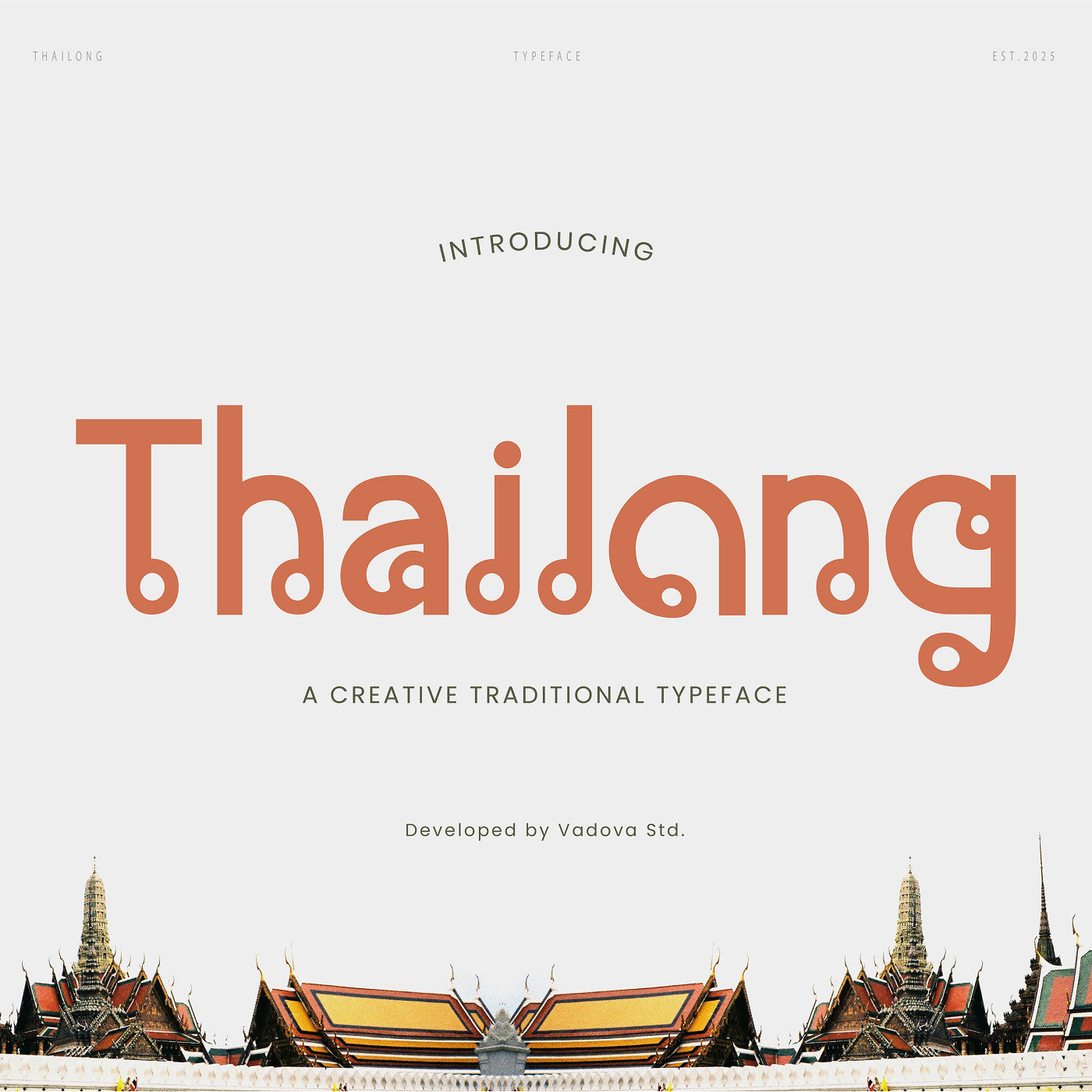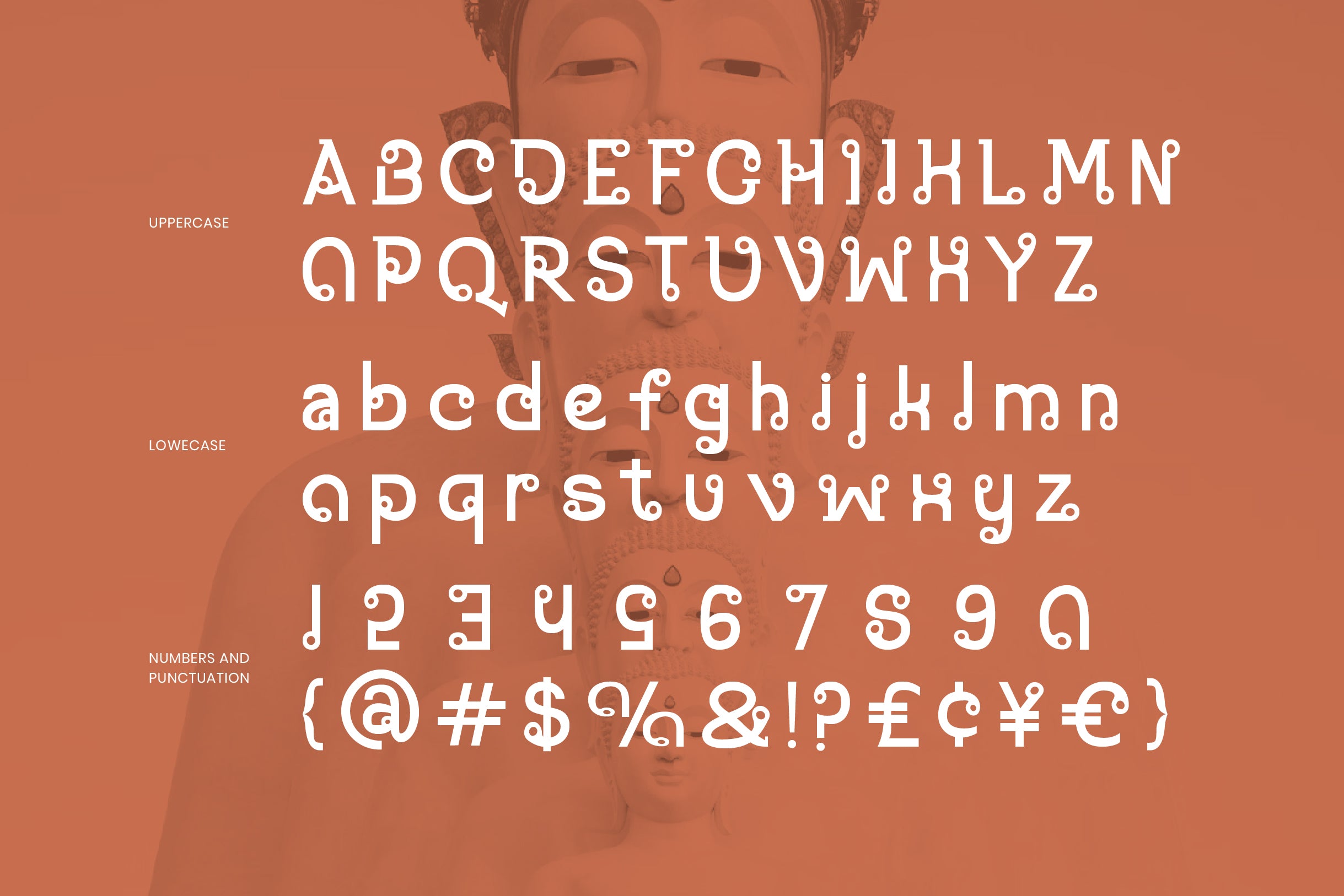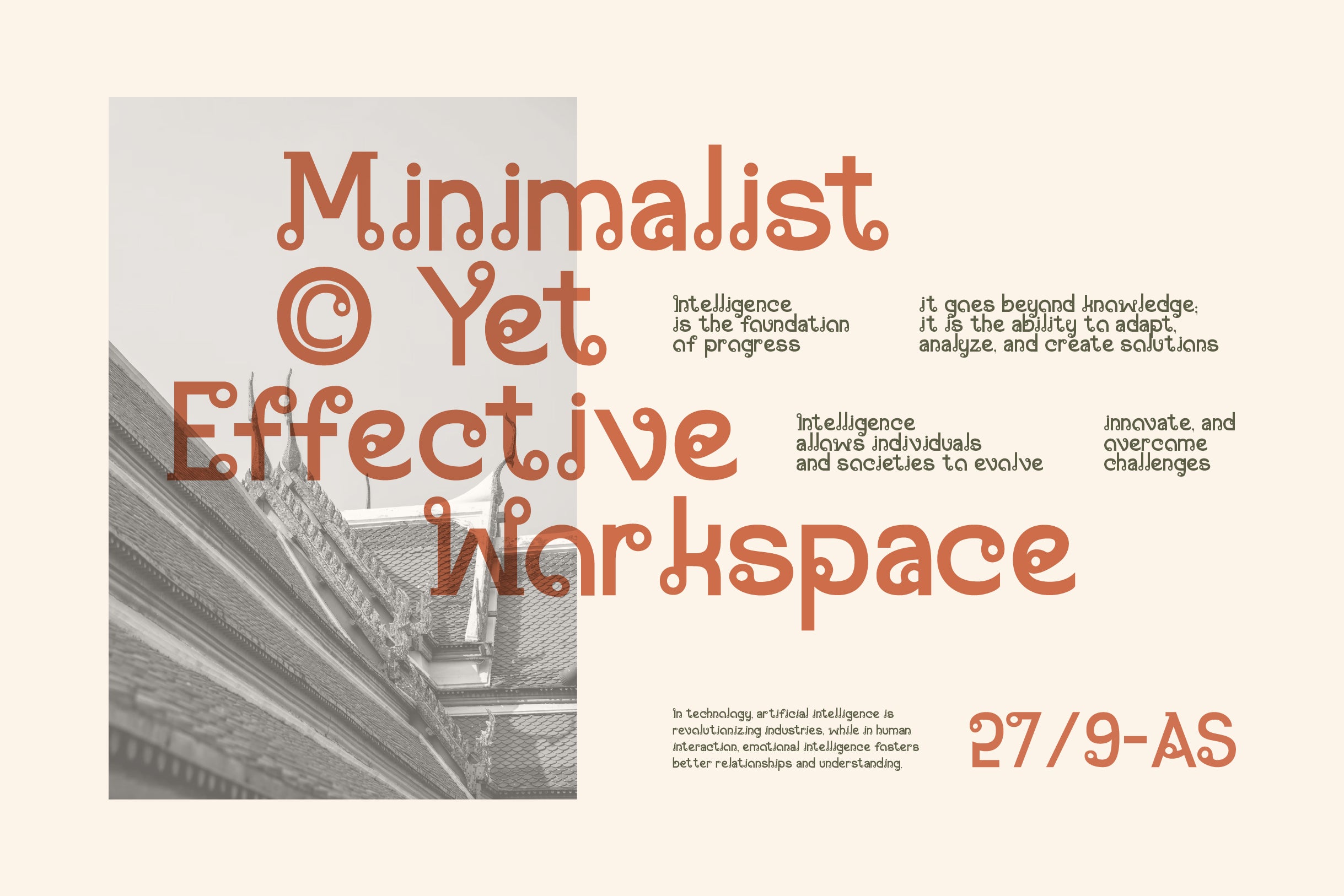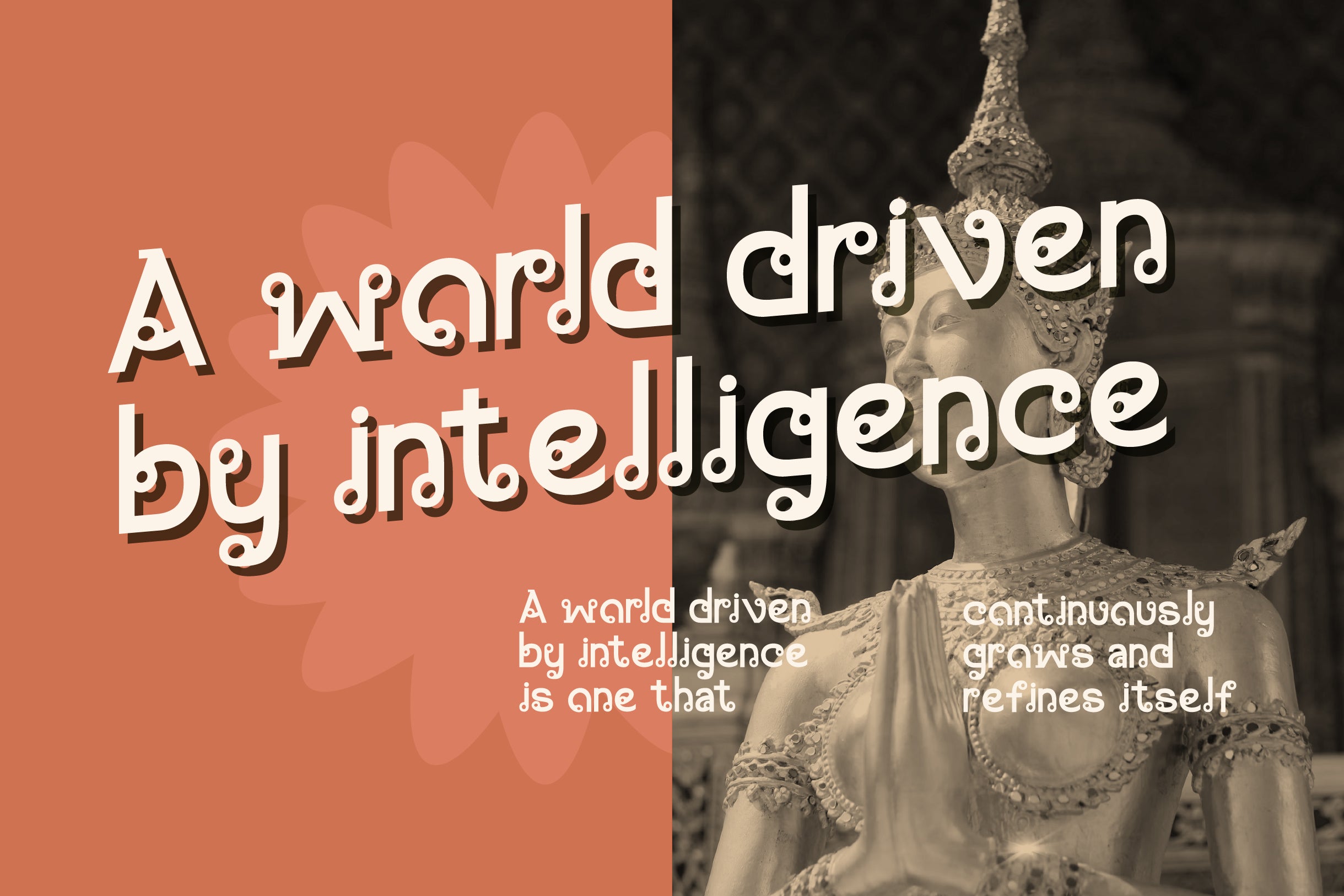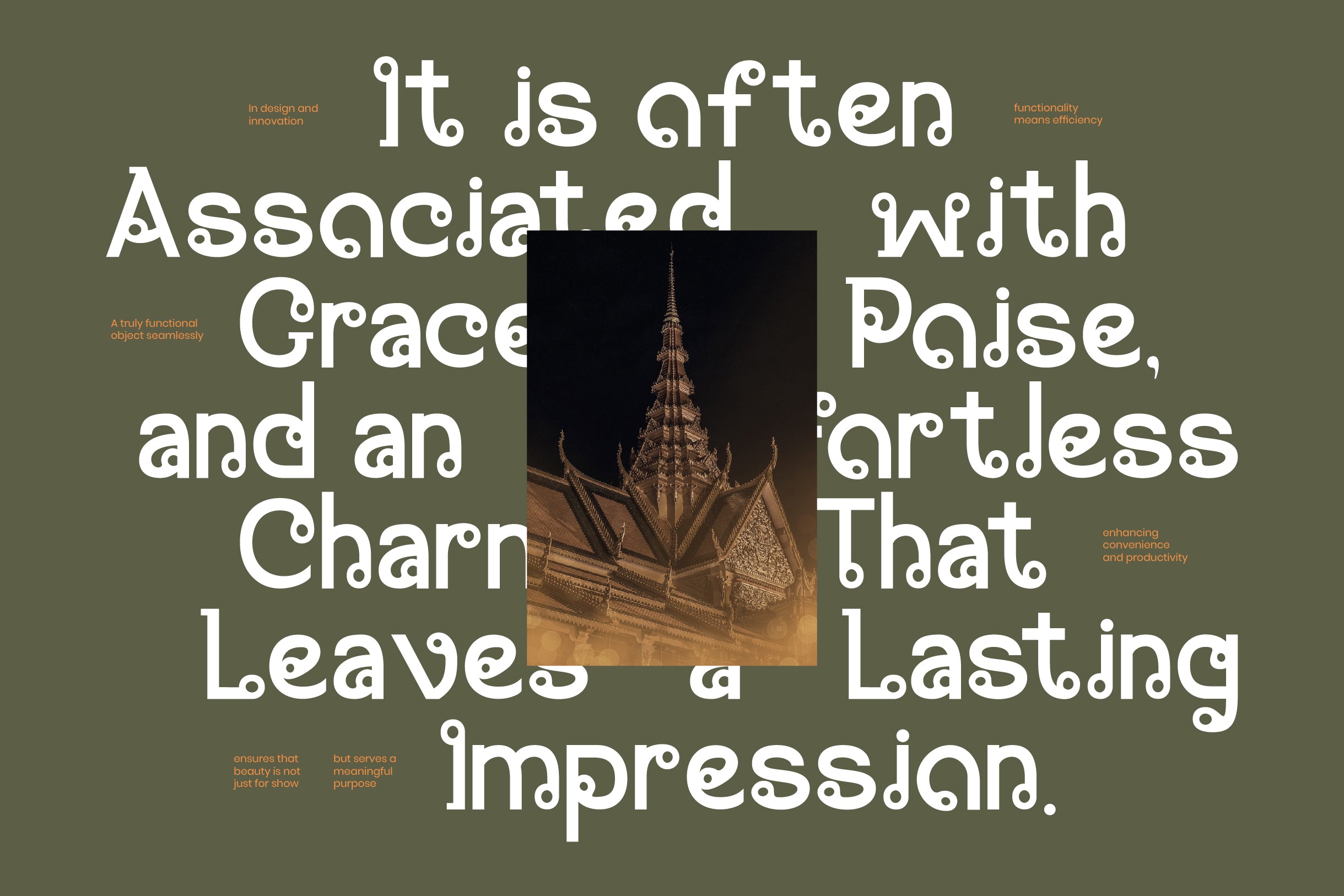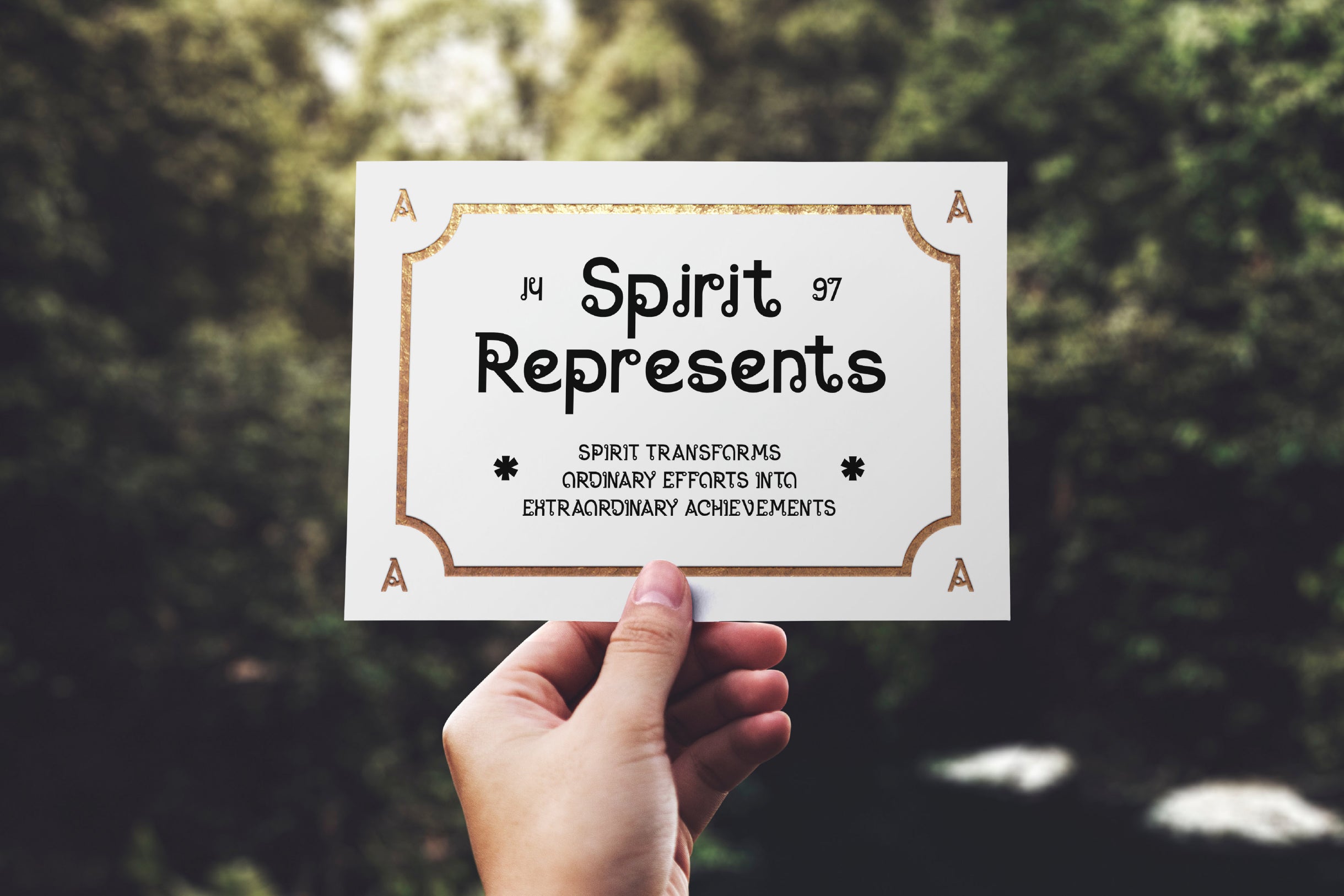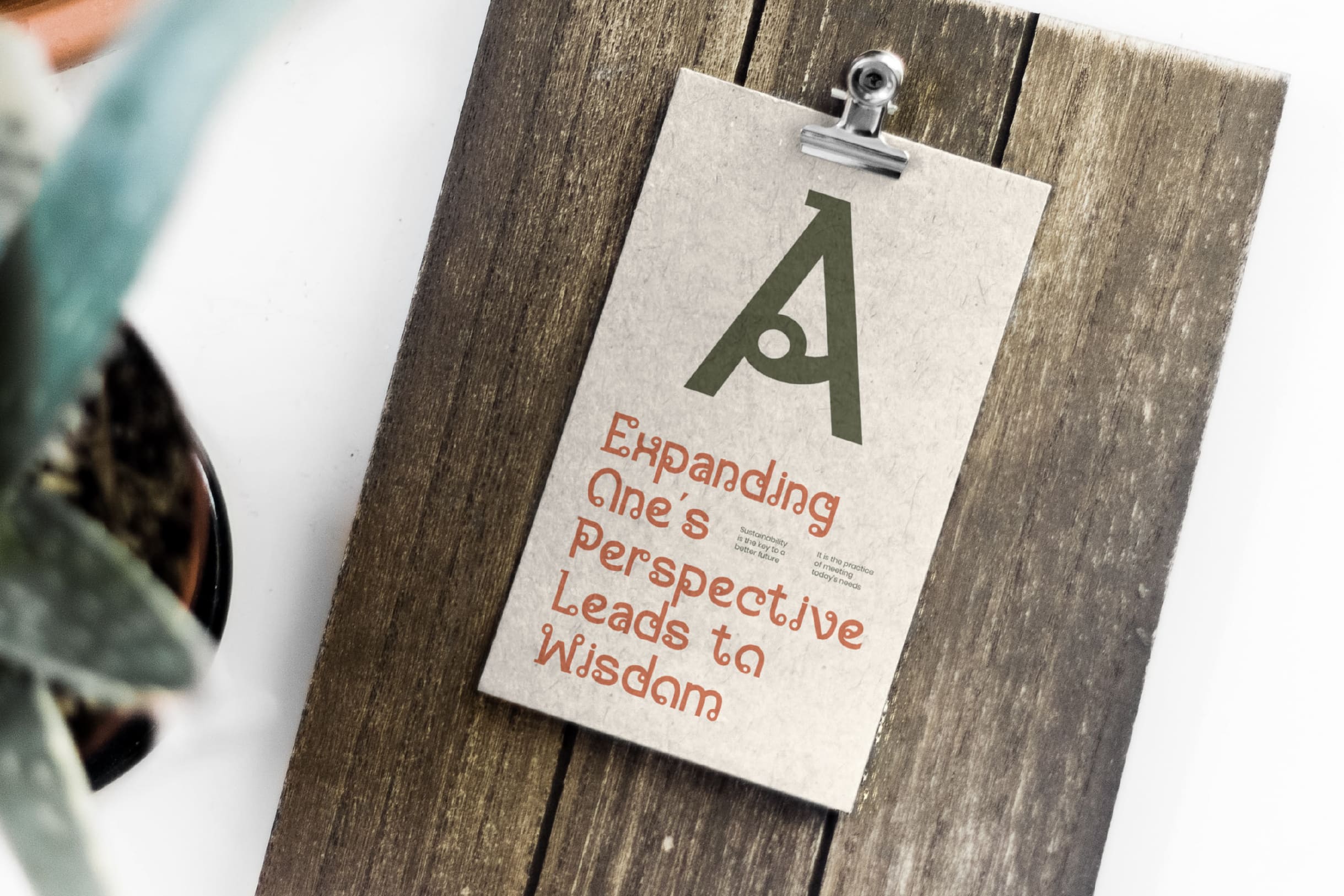
Thailong Creative Traditional Typeface Font
Thailong is a creative traditional display typeface inspired by ornamental letterforms and flowing decorative details. Its distinctive characters feature rounded terminals, curved strokes, and unusual circular accents that give the lettering a handcrafted cultural character while maintaining a strong display presence. The expressive construction makes it especially effective for large typography where the unique shapes can become part of the visual identity.
Thailong works well for cultural branding, food packaging, restaurant identities, posters, editorial artwork, invitations, merchandise, logos, and decorative headlines. It can be used to add a distinctive traditional atmosphere to modern compositions, especially when paired with photography, architectural imagery, ornamental graphics, or heritage-inspired visual elements.
• Uppercase & Lowercase characters
Thailong is a traditional display typeface featuring rounded terminals, curved strokes, and circular accents. It includes uppercase and lowercase characters, numerals, and punctuation, and is available in TTF, OTF, and WOFF formats.